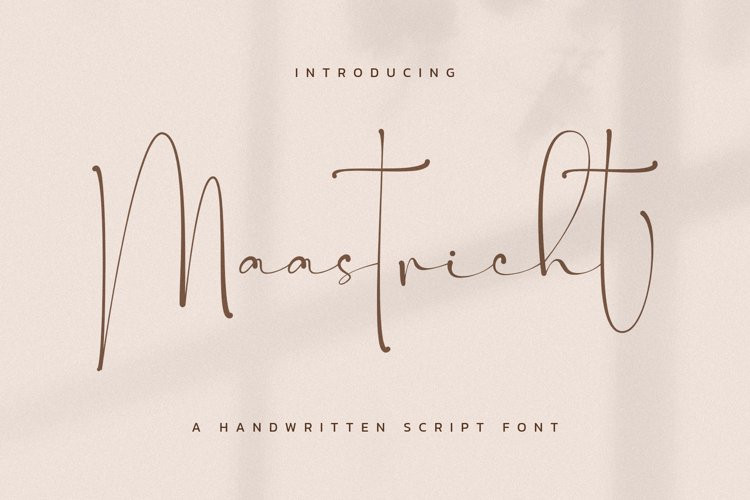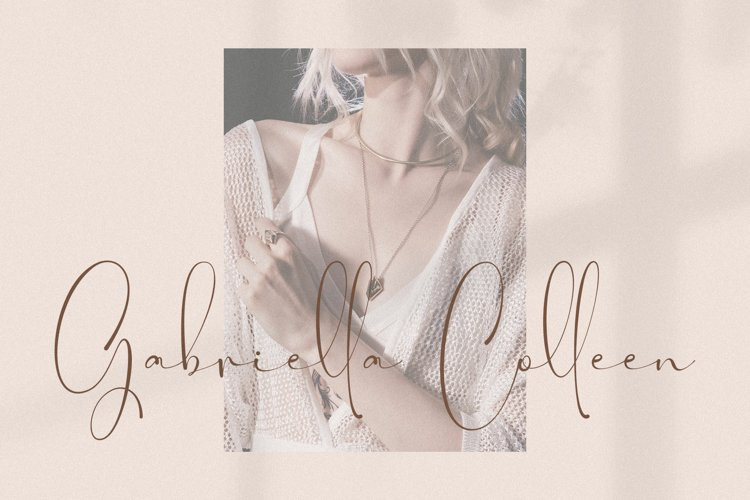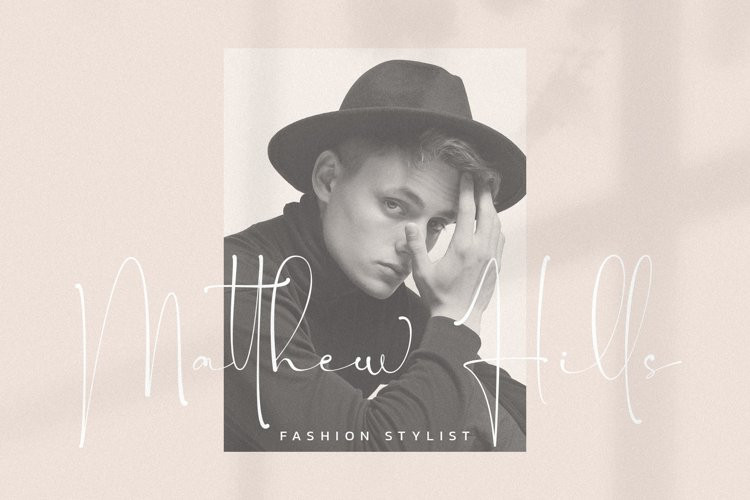
Maastricht Font
Maastricht FontMaastricht is a beautiful and flexible handwritten font. suitable for various design needs such as business cards, wedding invitations, banner ads and various other designs.
This font is PUA encoded, which means you can access all of the glyphs and with lots of swashes and ligature which makes this font more elegant and luxurious.
This Font includes full set of Uppercase and Lowercase Standard Characters, Numerals and Punctuation with lots of swashes and alternates which makes this font more elegant and luxurious. This font also has characters for multi language.